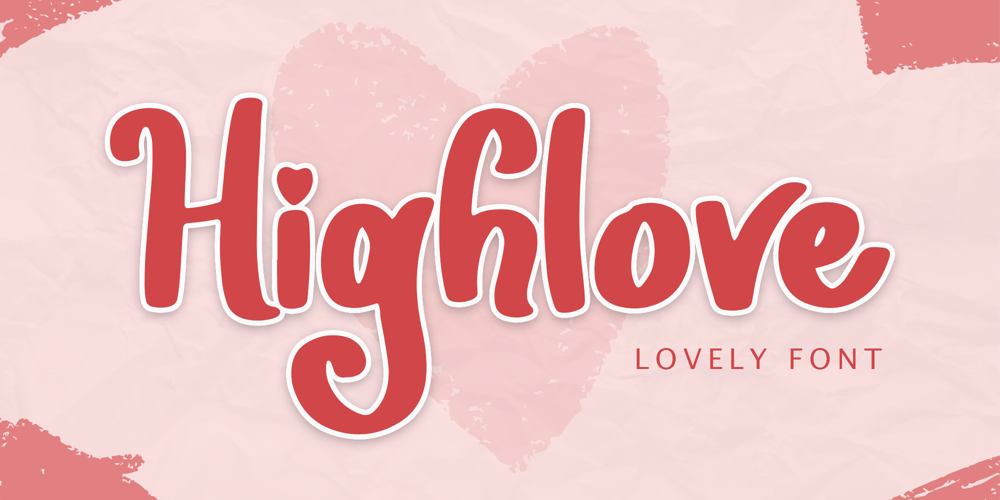
Highlove Font Family was designed by Alif Ryan Zulfikar and published by Sakha Design. Highlove contains 2 styles and family package options. Highlove is a gorgeous and delicate script font. It will elevate a wide range of crafting ideas, from cards, to branding, labels and much more. Add it confidently to your favorite creations and let yourself be amazed by the outcome generated.